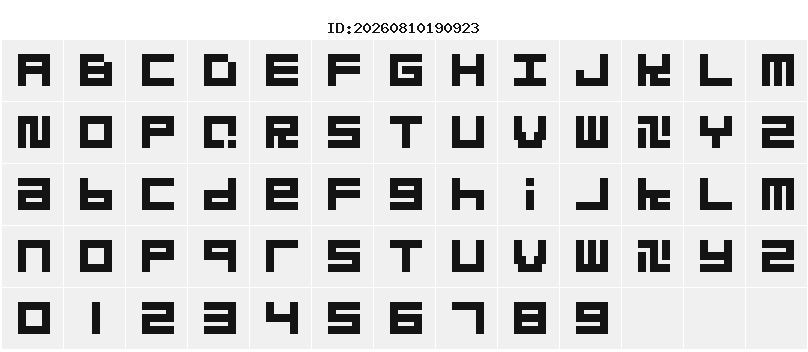
About Quadrats.ttf
Quadrats.ttf is a modern, elegant sans-serif font designed for ultimate readability and visual harmony. Perfect for branding, headlines, web design, and print materials.